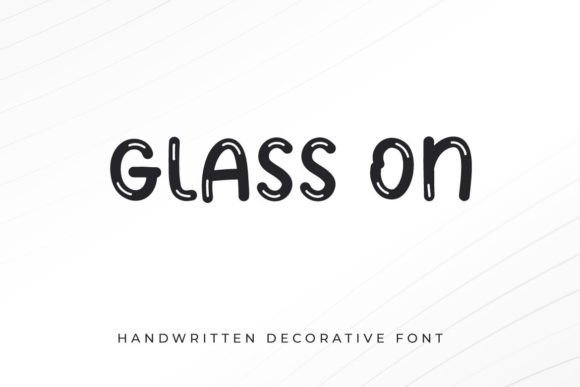
Have you ever been brainstorming an idea for a new comic book or advertisement, but struggled to find the right words to bring it to life? You’re not alone. We’ve all been there, staring at a blank page, trying to find the perfect font to match our creative vision. That’s where Glass on Font comes in – a beautiful, handwritten script that’s sure to add a touch of whimsy and personality to any project.
Designed with fun and playfulness in mind, Glass on Font is the perfect choice for designers looking to add a little extra flair to their work. Whether you’re creating a flyer, book title, or social media content, this versatile font is sure to bring your ideas to life. And with its wide range of applications, from kindergarten projects to professional advertisements, Glass on Font is an invaluable tool for designers of all levels.
Key Features of Glass on Font
- Font Family: Glass on Font is a modern sans-serif font family designed for digital use. It is available in several weights, including Thin, Light, Regular, Medium, Bold, and Black.
- Size: Glass on Font is designed for use at various font sizes, from 8pt to 24pt, making it suitable for a wide range of applications, including body text, headings, and titles.
- Resolution: The font family is designed to work well at a range of resolutions, from 72 dpi to 300 dpi, making it suitable for use on screens and in print.
- Unique Characteristics: Glass on Font has a unique, modern design with a blend of geometric and organic shapes, giving it a distinctive and eye-catching appearance.
- Language Support: The font family supports a wide range of languages, including Latin, Cyrillic, Greek, and many others, making it suitable for use in international applications.
Glass on Font Review
Glass on Font is a beautiful sans-serif font that catches the eye. It works well in ✨ headings and titles, adding a touch of sophistication and elegance. The font’s rounded edges and sleek design make it perfect for modern designs, especially those in the tech and fashion industries.
The font’s versatility is another notable aspect. It’s suitable for a wide range of applications, from ✨ website headers to ✨ product labels. The font’s legibility ensures that it remains readable even at small sizes, making it an excellent choice for mobile devices.
Limits and Areas for Improvement
One of the main limitations of Glass on Font is its ✠ lack of italic and bold variants. This can be a challenge for designers who require these styles for their projects. Additionally, the font’s ⚠️ limited language support may be a concern for designers working on international projects.
Glass on Font is a solid choice for designers looking for a modern, clean font. While it has its limitations, its beauty and versatility make it worth considering. Overall, I’d give Glass on Font 4 out of 5 stars.
- Beautiful sans-serif design
- Suitable for modern designs
- Good legibility at small sizes
- Limited language support
- No italic and bold variants
Tips for Getting the Most Out of Glass on Font
To get the most out of Glass on Font, try the following:
- Experiment with different font sizes and styles to achieve the desired effect.
- Use Glass on Font in combination with other design elements, such as gradients or shadows, to add depth and interest.
- Test the font in different contexts, such as
What are the benefits of using Glass on Font compared to other font rendering techniques?
The benefits of using Glass on Font include improved text clarity and accuracy, reduced aliasing and artifacts, and enhanced overall visual quality. Glass on Font is particularly well-suited for applications that require high-quality text rendering, such as graphic design, publishing, and gaming. It can also help to improve accessibility for users with visual impairments.